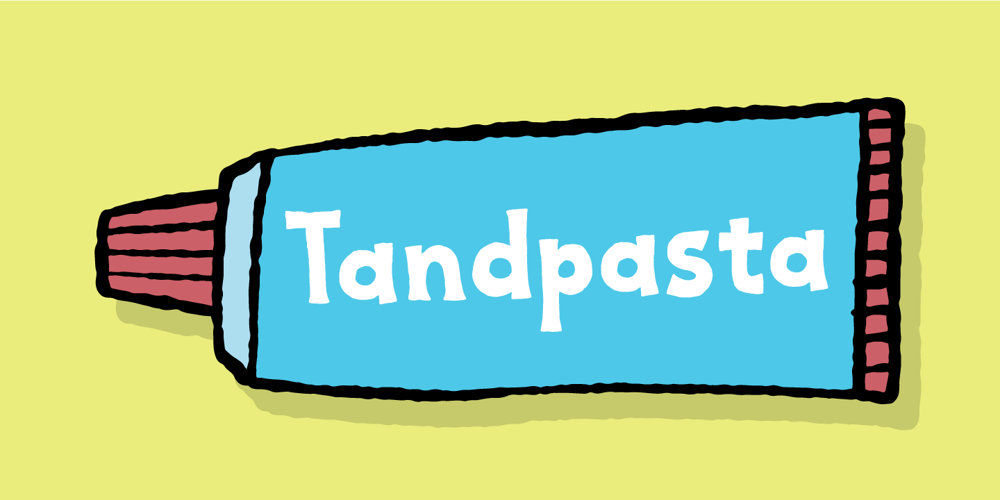
Tandpasta Font Family was designed by Jakob Fischer and published by Bogstav. Tandpasta contains 2 styles and family package options. Tandpasta is danish for toothpaste. I was inspired by an old commercial for toothpaste, and since the only letters I had to work with was “Toothpaste” I had to use my imagination, to come up with the rest.I used a slightly blurry pen, leaving the lines of Tandpasta somewhat uneven, but still legibe.